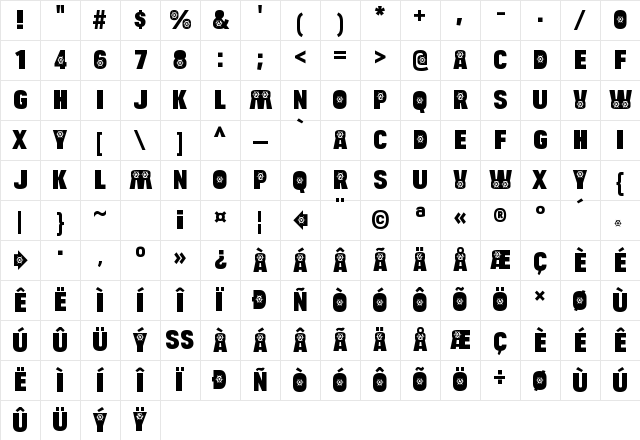
Bulltoad Boat Regular
Design Context for Bulltoad Boat
Bulltoad Boat is a composed and adaptable typeface that performs quietly and consistently across a wide range of design contexts.
Pro Tip: Use Bulltoad Boat in both headline and body roles to test its range before committing to a single application.